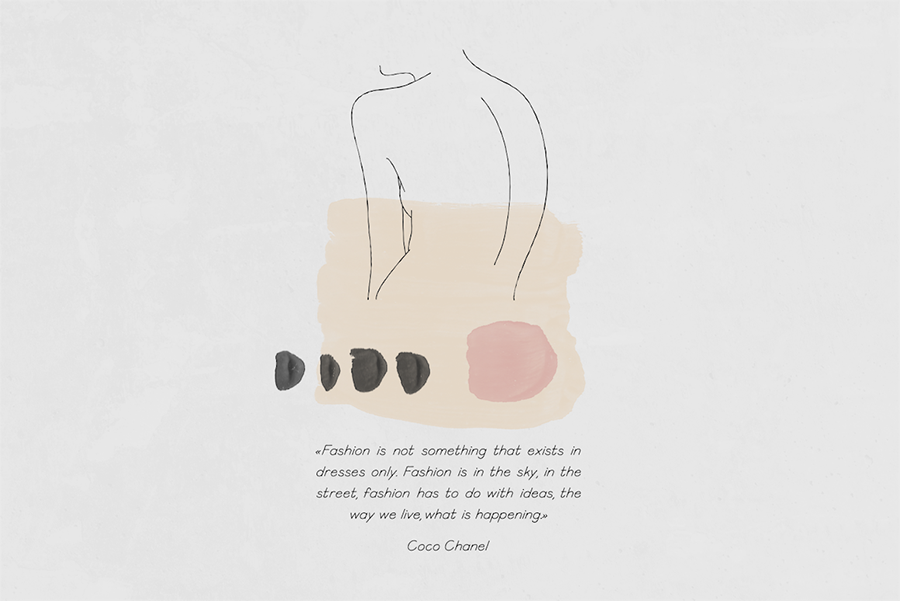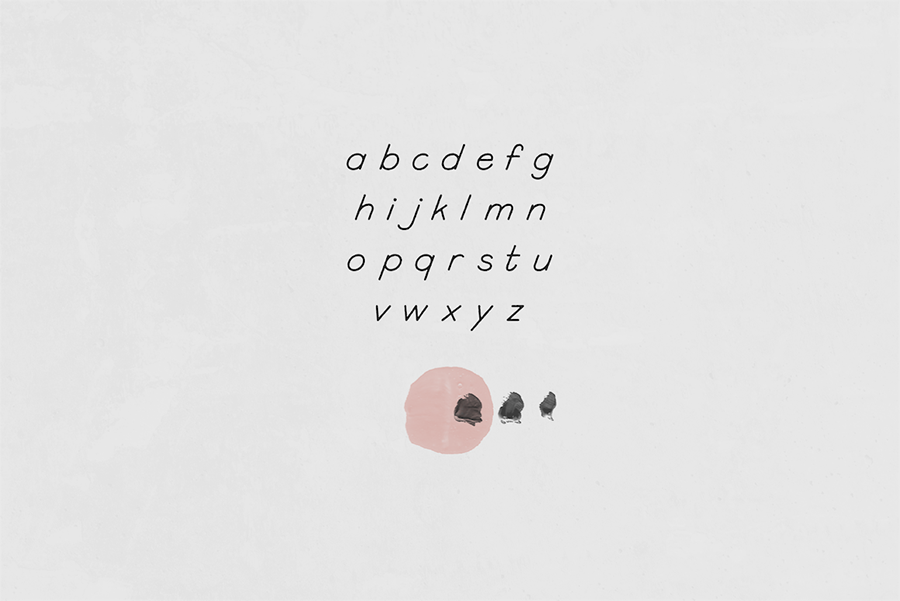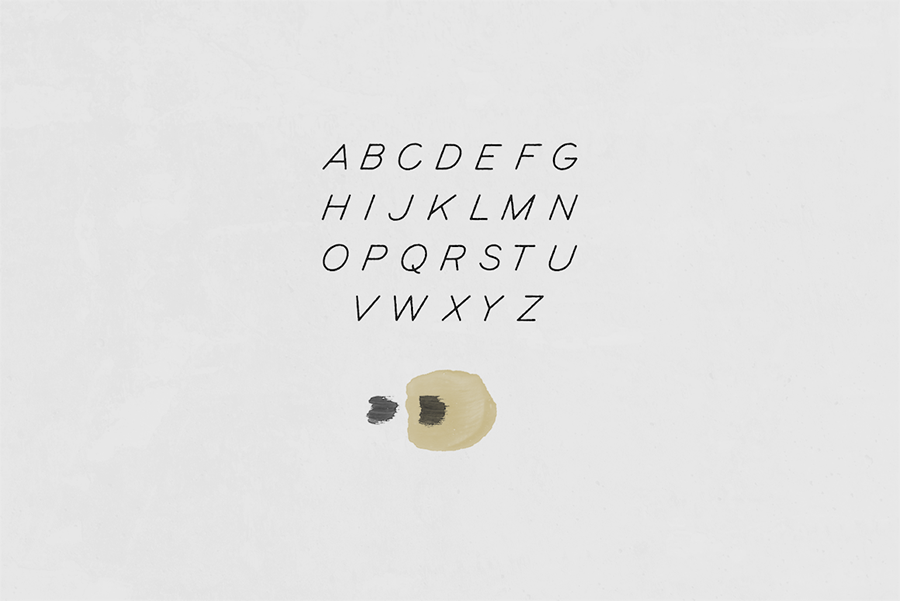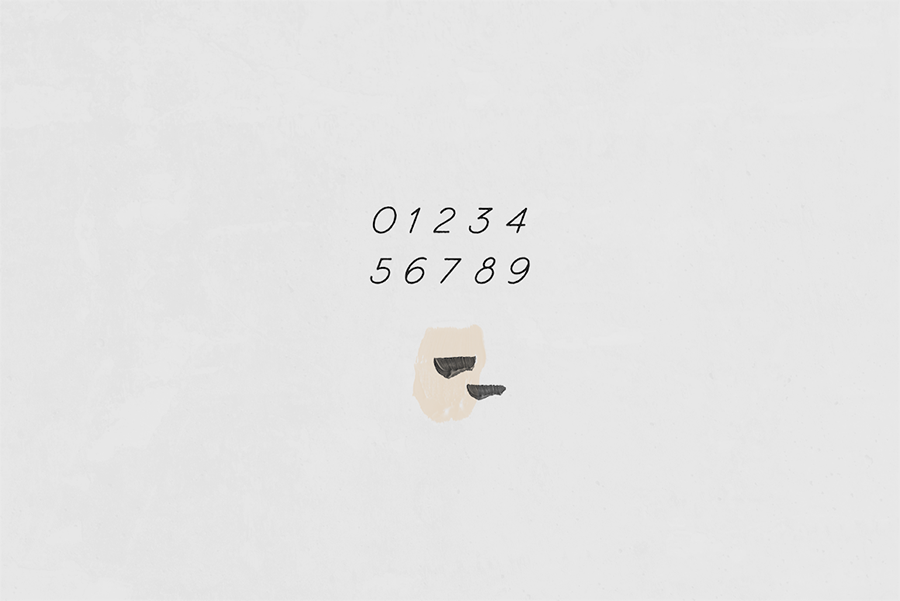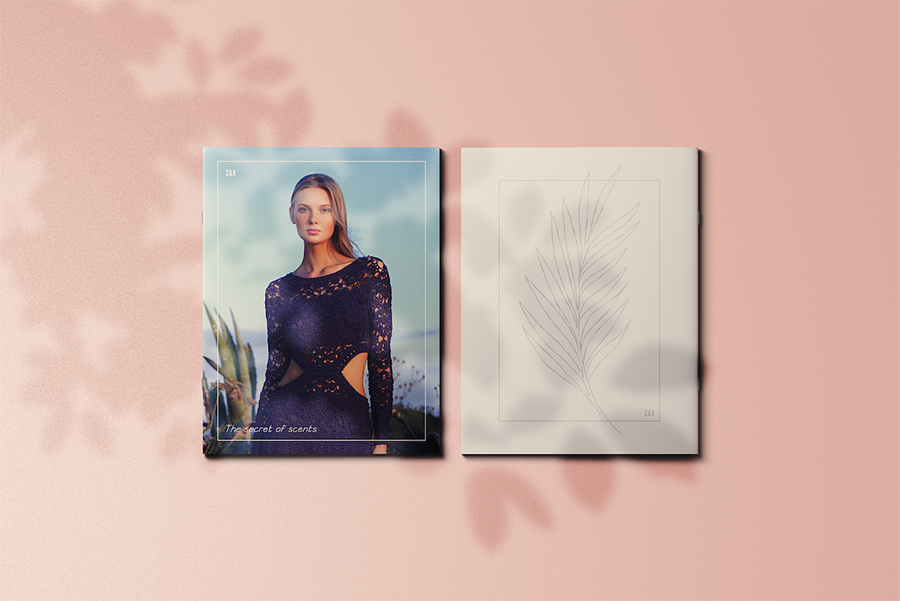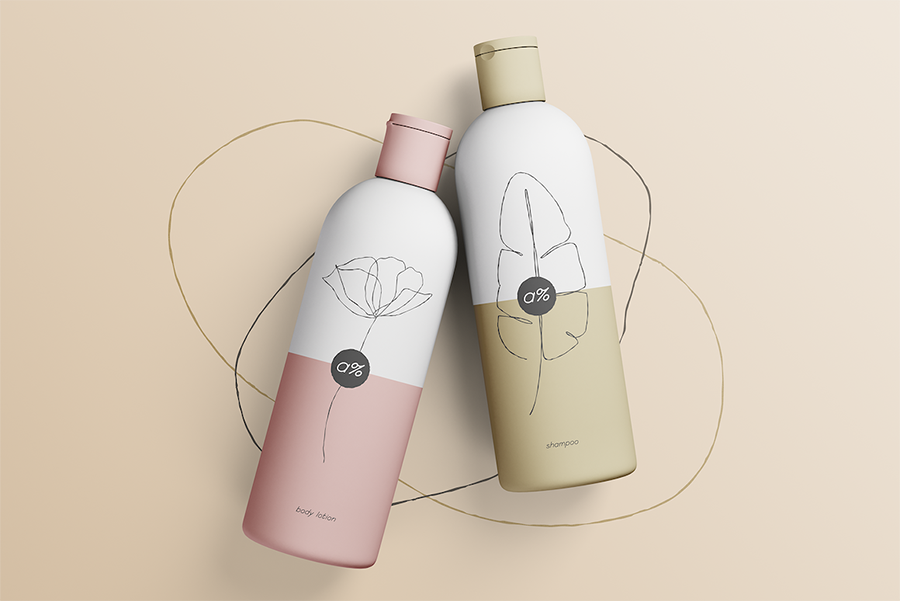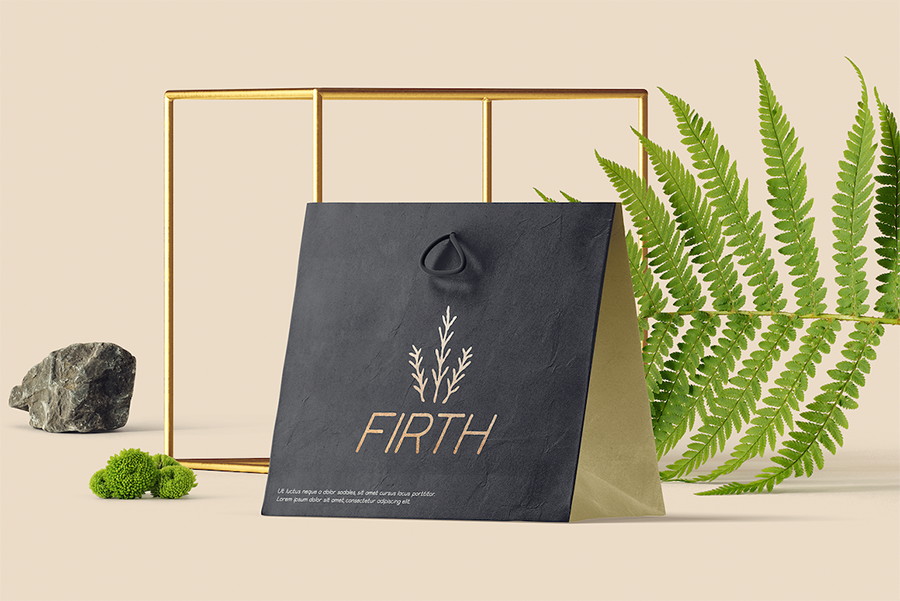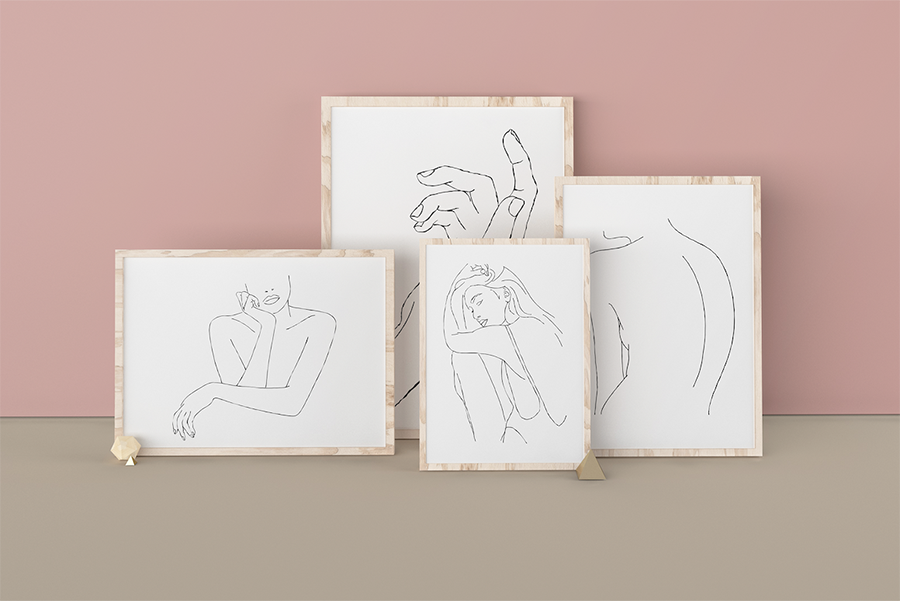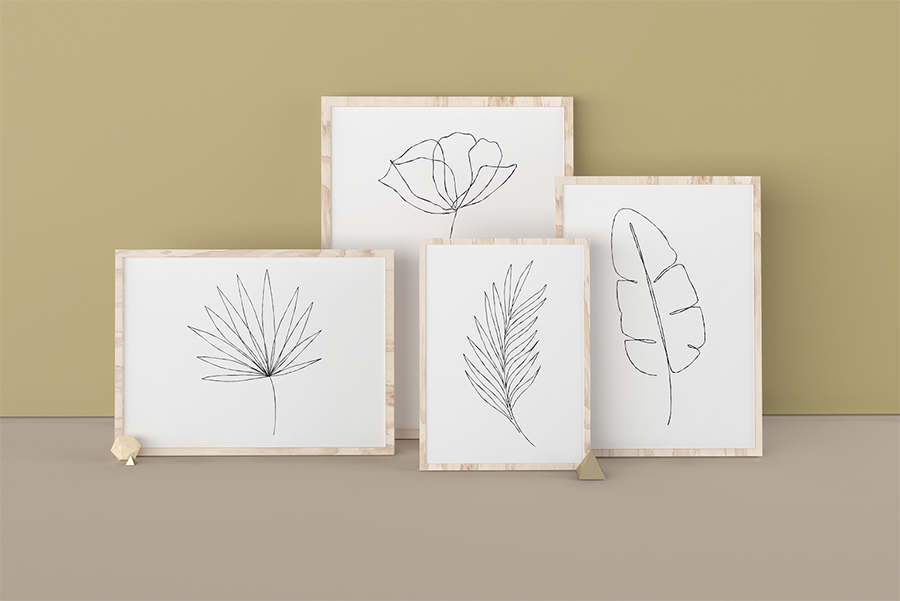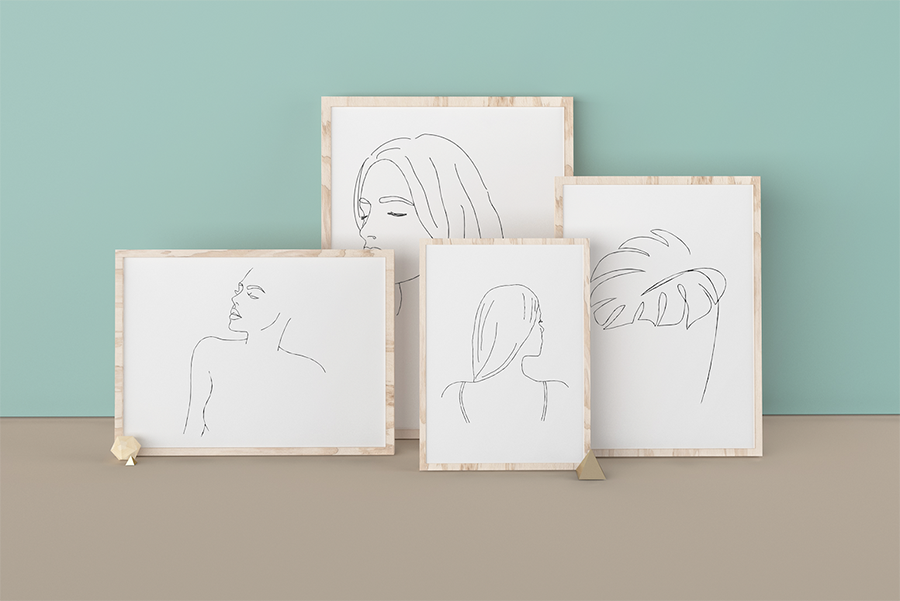
Renaissance Free Elegant Typeface
Renaissance Free Elegant Typeface is a minimalistic hand-lettered sans combined with a collection of elegant line drawings. This kit is meant to be versatile with an overall result characterized by a modern look. The sophisticated undulating lines with the clarity of minimalist precision function beautifully in any contemporary design work, with a nod to elegance and femininity. Perfect for branding, weddings, social media, product design, stationery, quotes, and advertising.